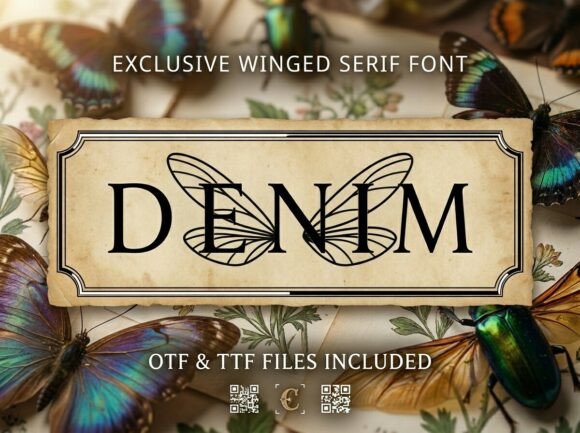
Unleash the Magic of Denim Font: A Whimsical Display Typeface
Step into a world of enchantment with Denim, a magical display typeface that captures a “ethereal-and-whimsical” soul. This font features bold, high-contrast serif letterforms uniquely integrated with rhythmic, hand-drawn fairy wings that sprout from the stems of each character. With its striking structural weight and fantasy-driven personality, Denim is the premier choice for independent fairytale-themed branding, boutique nursery decor, children’s book titles, and high-impact “mystical-and-enchanted” social media headers.
A Font that Transcends Ordinary Typography
Denim Font is not just a typeface; it’s an experience. Its bold, high-contrast serif letterforms are carefully crafted to evoke a sense of wonder and magic. The addition of hand-drawn fairy wings that sprout from the stems of each character adds a touch of whimsy and playfulness, making it perfect for designs that require a dash of fantasy and enchantment.
Perfect for Fairytale-Themed Branding and Design
Denim Font is an ideal choice for designers and crafters looking to create fairytale-themed branding, packaging, and marketing materials. Its unique and captivating design makes it perfect for:
- Independent fairytale-themed branding and packaging
- Boutique nursery decor and children’s book titles
- High-impact “mystical-and-enchanted” social media headers
- Fantasy-themed party invitations and decorations
- Whimsical stationery and greeting cards
Key Features of Denim Font
So, what makes Denim Font so special? Here are some of its key features:
- Bold, high-contrast serif letterforms: Denim Font features bold, high-contrast serif letterforms that are carefully crafted to evoke a sense of wonder and magic.
- Hand-drawn fairy wings: The font’s unique hand-drawn fairy wings add a touch of whimsy and playfulness to each character.
- Striking structural weight: Denim Font has a striking structural weight that makes it perfect for high-impact designs.
- Fantasy-driven personality: The font’s fantasy-driven personality makes it perfect for designs that require a dash of magic and enchantment.
In conclusion, Denim Font is a magical display typeface that captures a “ethereal-and-whimsical” soul. Its bold, high-contrast serif letterforms, hand-drawn fairy wings, and striking structural weight make it perfect for fairytale-themed branding, boutique nursery decor, children’s book titles, and high-impact “mystical-and-enchanted” social media headers. With its fantasy-driven personality and versatility, Denim Font is an ideal choice for designers and crafters looking to add a touch of magic and enchantment to their designs.